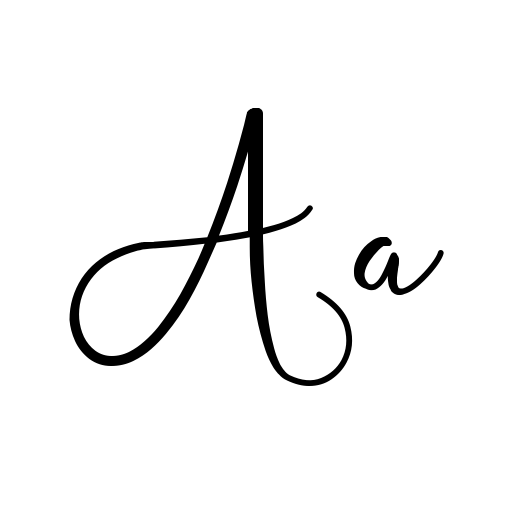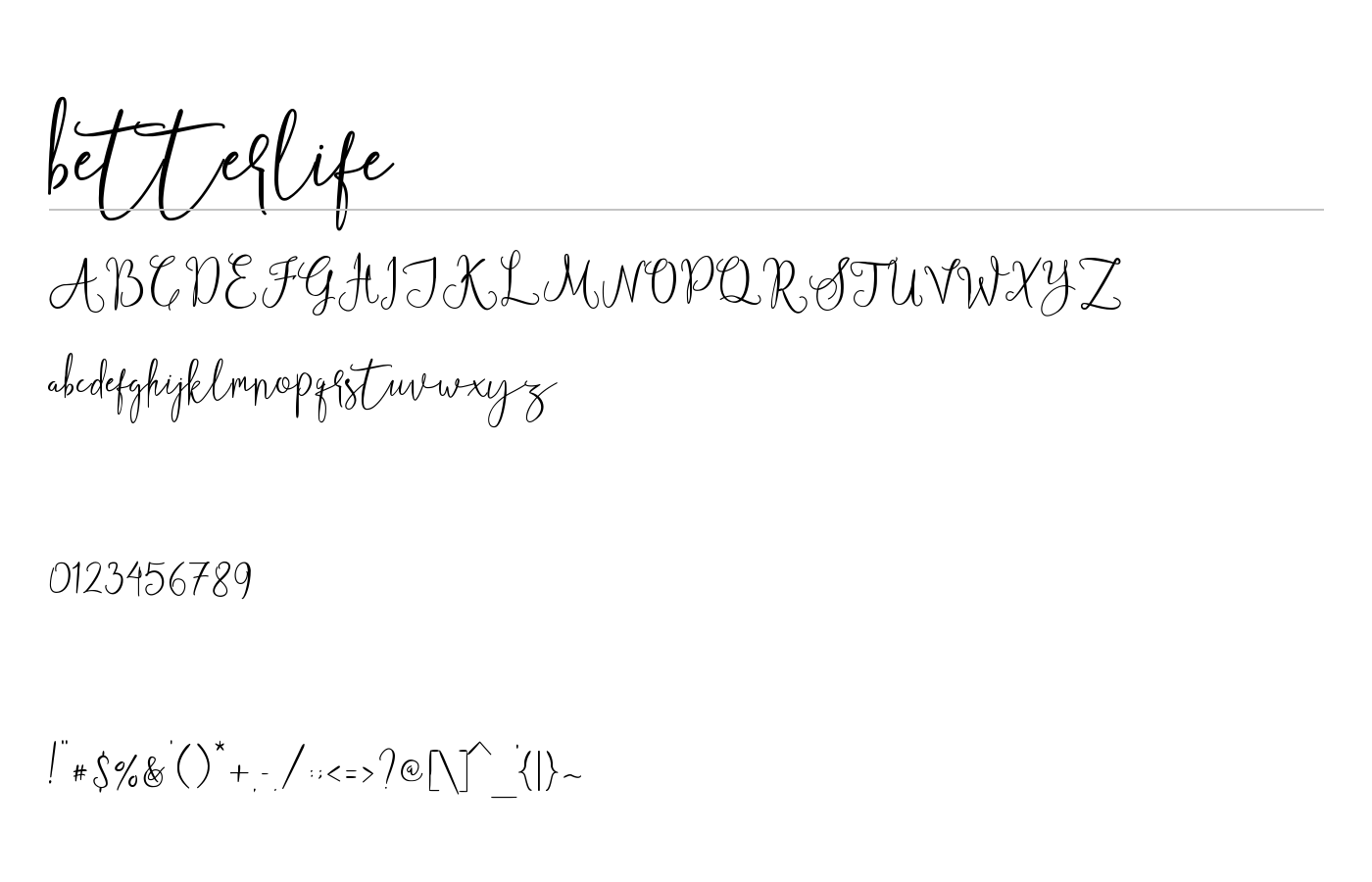
Betterlife is a delicate, handwritten script font that exudes elegance with its thin, flowing strokes and playful loops. Its tall x-height and slender letterforms give it a sophisticated yet approachable feel, perfect for creating personal or artistic branding, wedding invitations, and feminine editorial designs. This font’s refined style works best in contexts where a soft, graceful touch is desired to convey warmth and creativity.
betterlife Font
About betterlife Font
| Font family | betterlife Font |
| Designer | Creaditive |